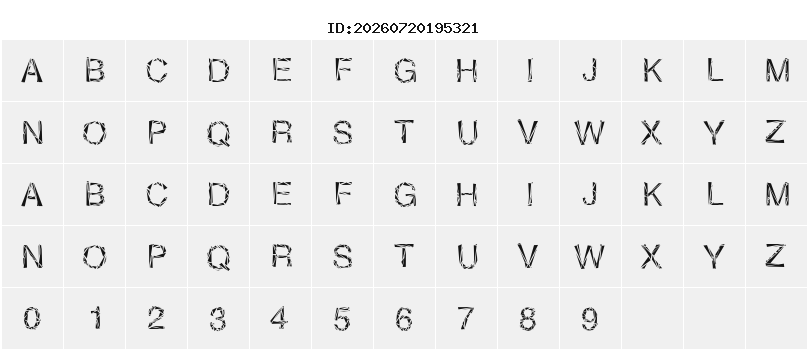
FourSixteenSixteen Preview
• Font Name: FourSixteenSixteen
• Full Font Name: FourSixteenSixteen
About FourSixteenSixteen.ttf
FourSixteenSixteen.ttf is a modern, elegant sans-serif font designed for ultimate readability and visual harmony. Perfect for branding, headlines, web design, and print materials.